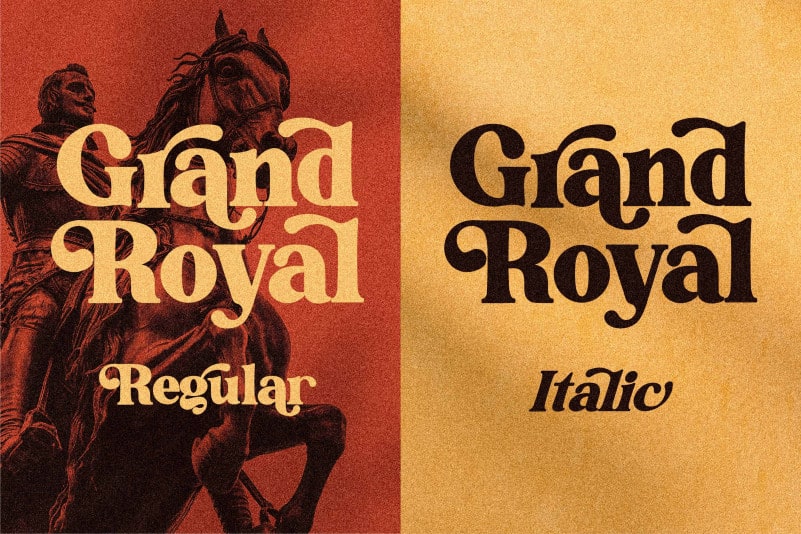
Grand Royal Serif Font
Grand Royal Serif Font is a bold and classy serif font. Fall in love with its incredibly versatile style and use it to create gorgeous wedding invitations, beautiful stationary art, eye-catching social media posts, and much more!